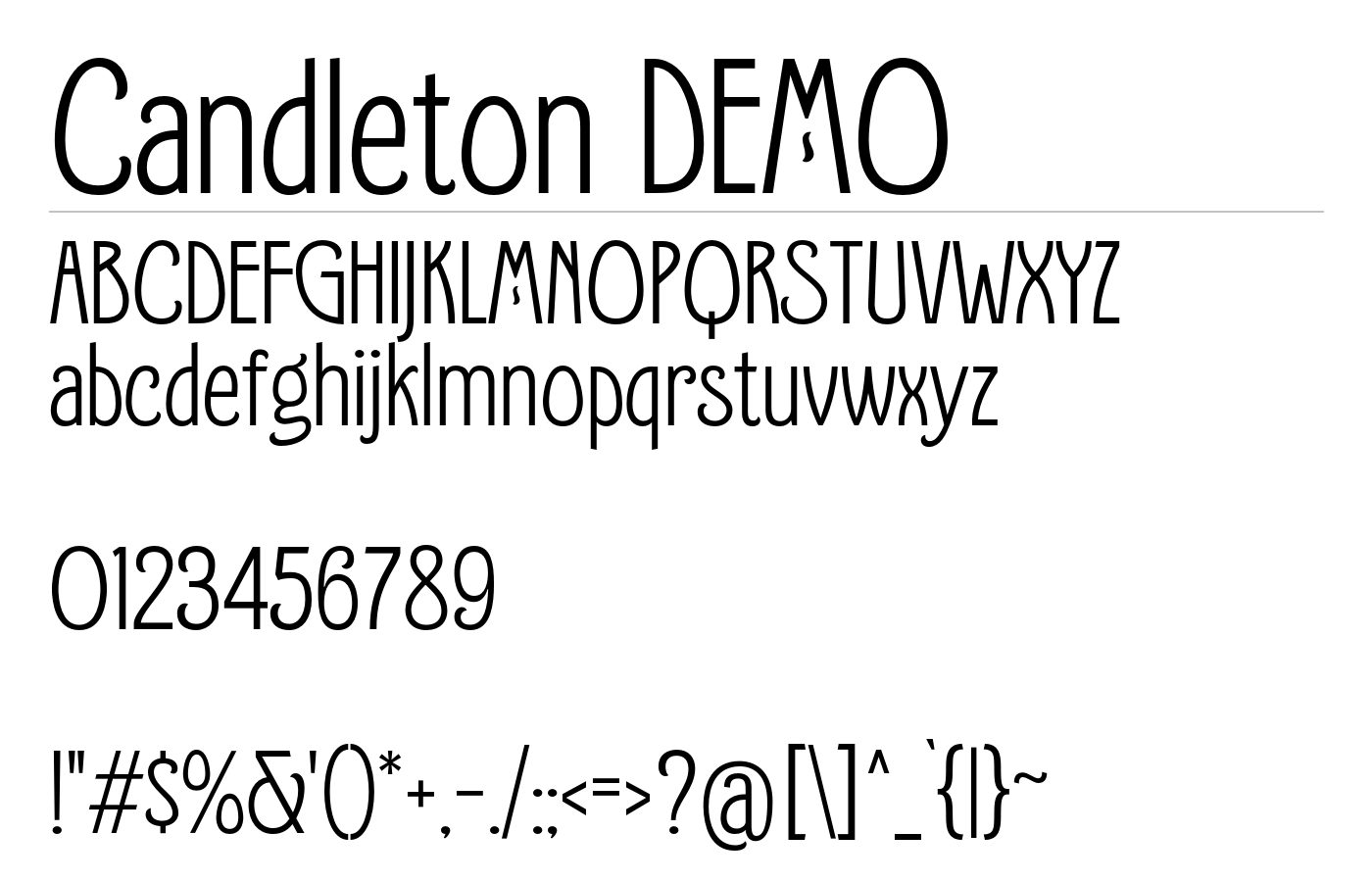
Candleton DEMO is a tall and narrow sans serif font with a playful and quirky personality, characterized by its slender strokes and unique, slightly irregular letter shapes. Its clean lines combined with subtle decorative details make it a great choice for creative headlines, logos, and branding that want to convey a modern yet whimsical style. This distinctive font works well in projects needing a light, stylish touch without sacrificing readability.
Candleton DEMO Font